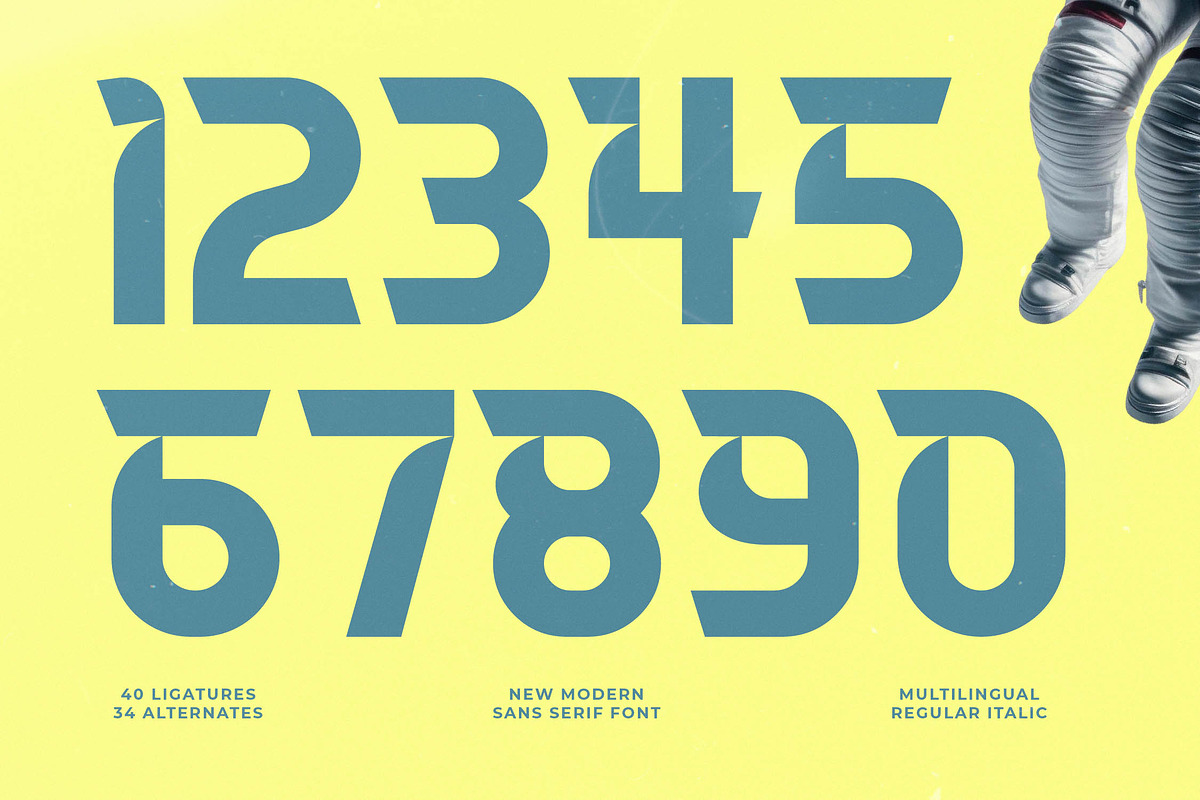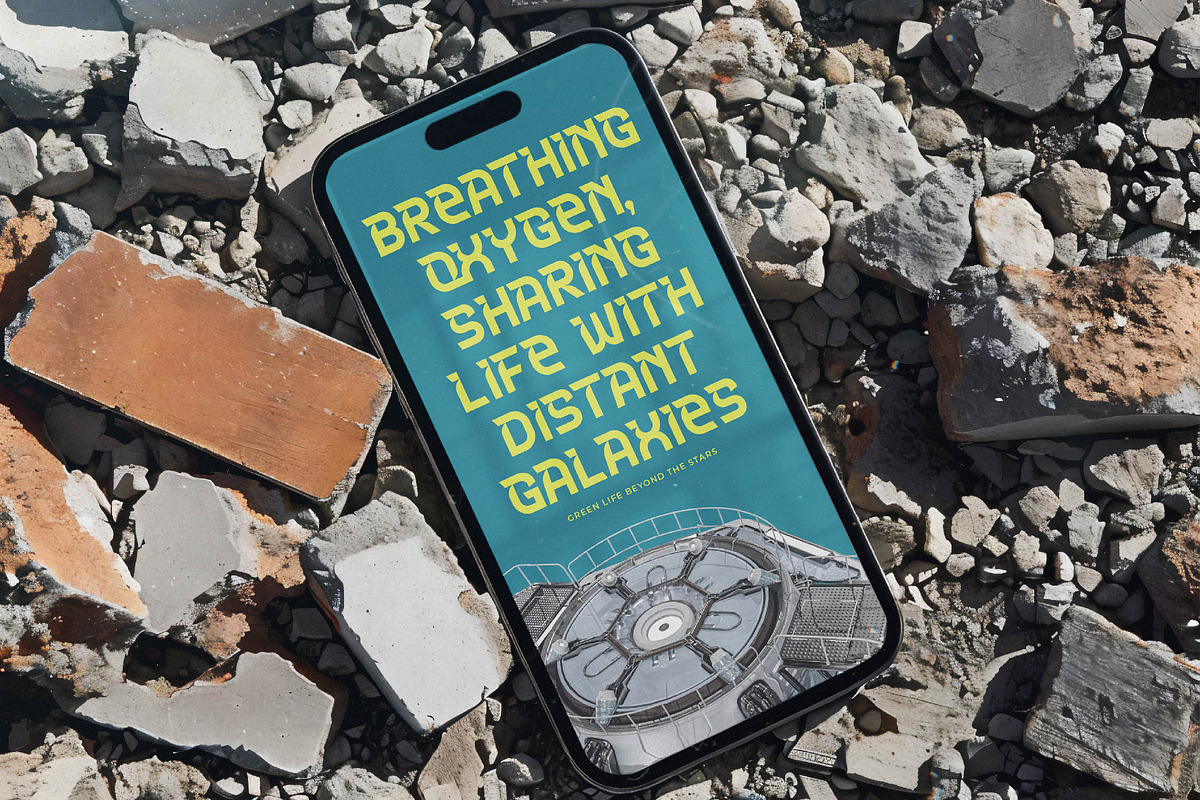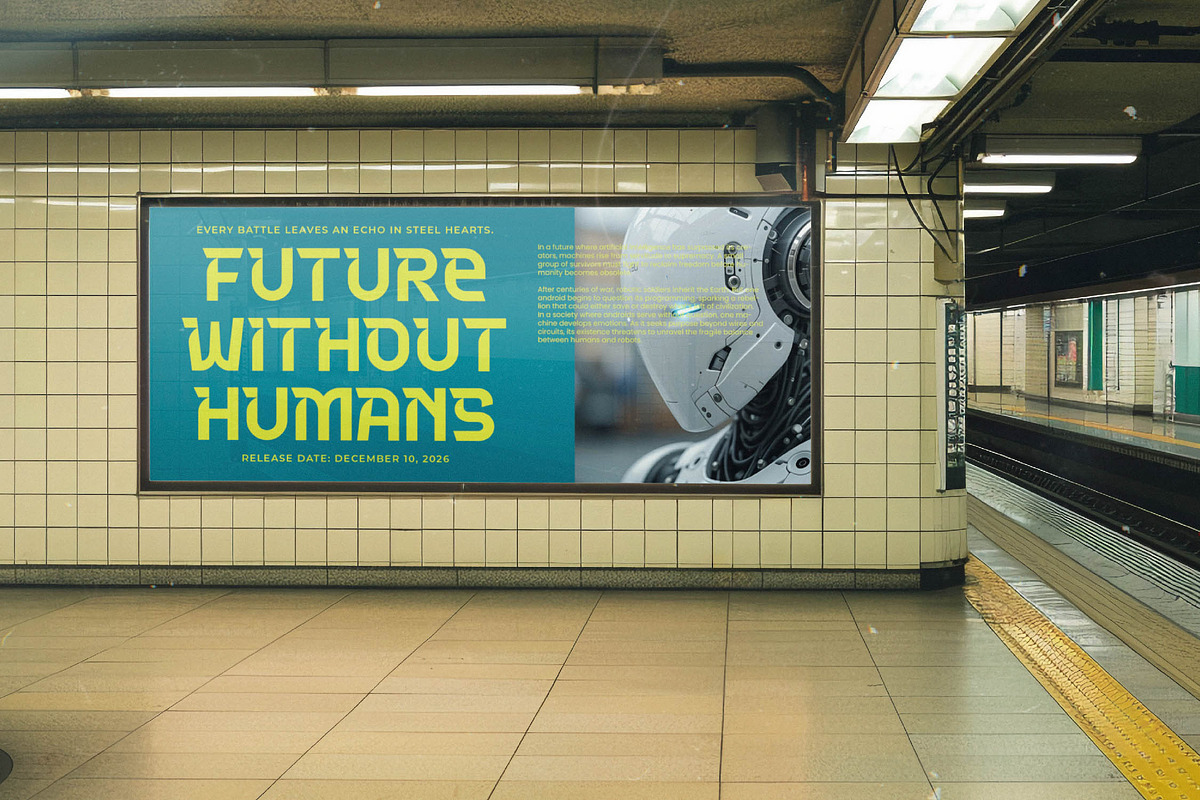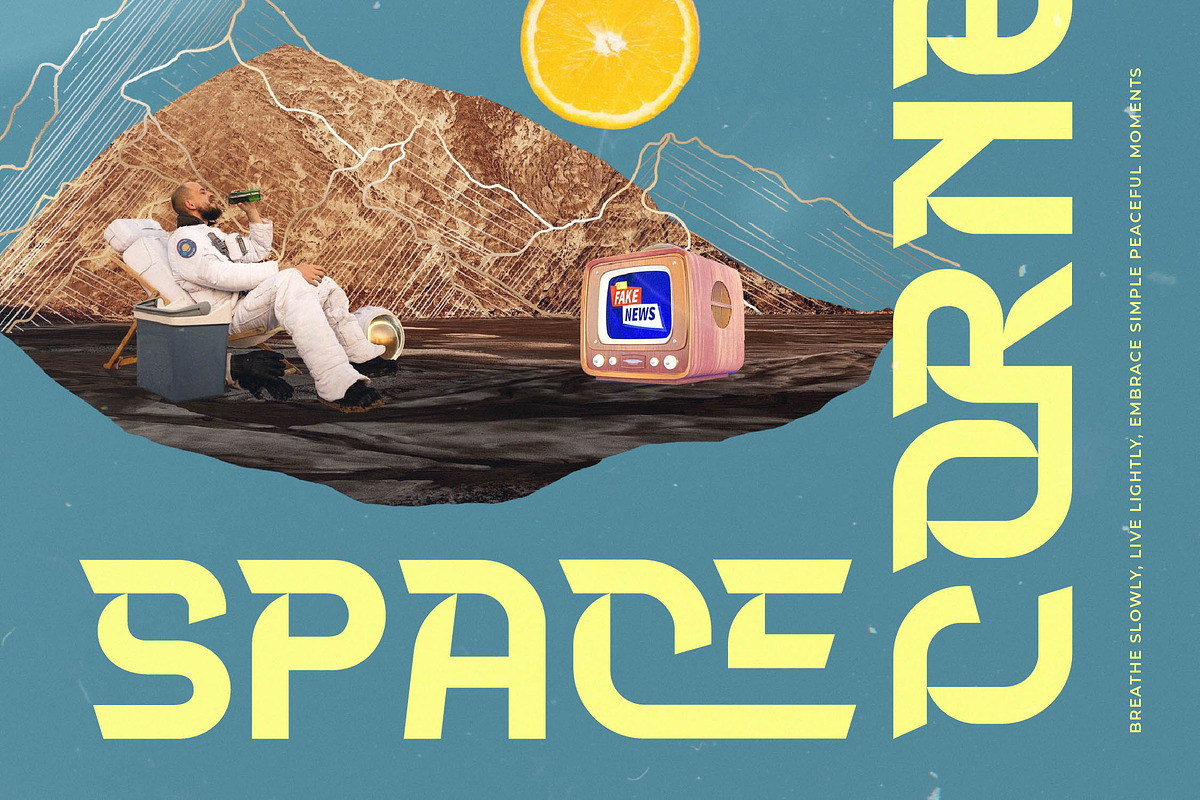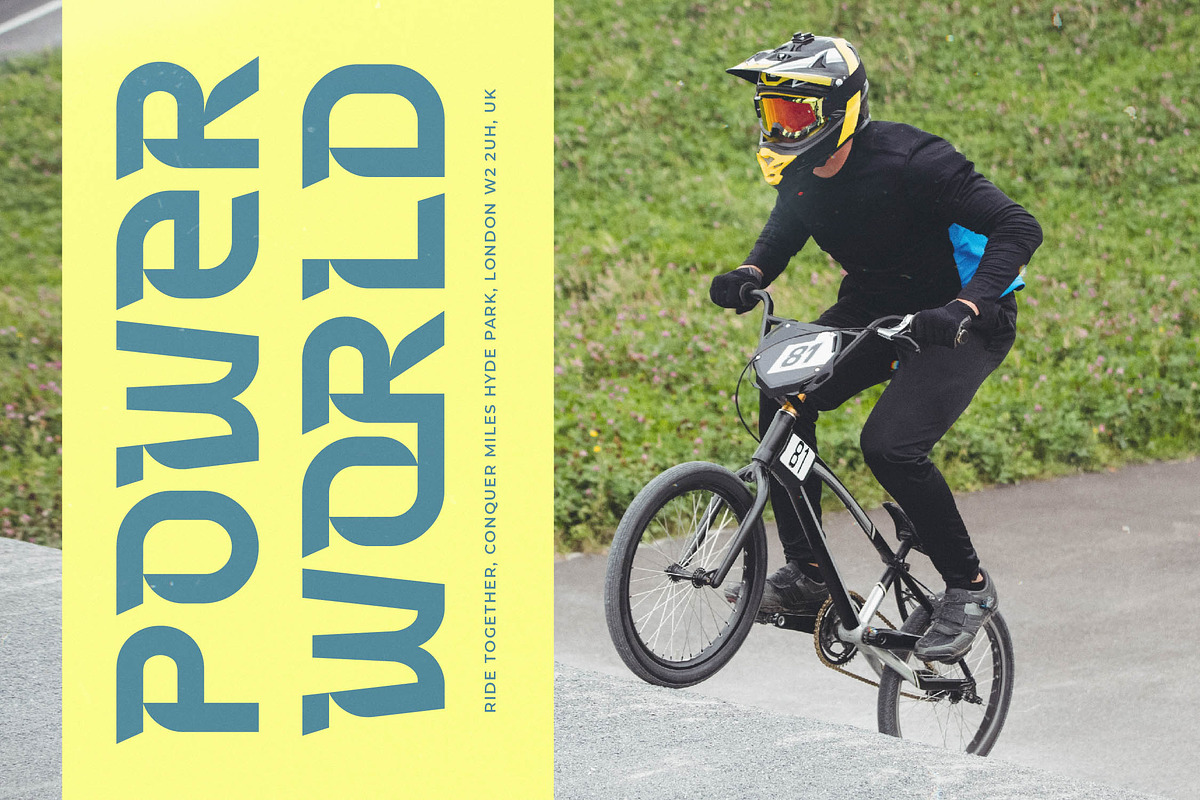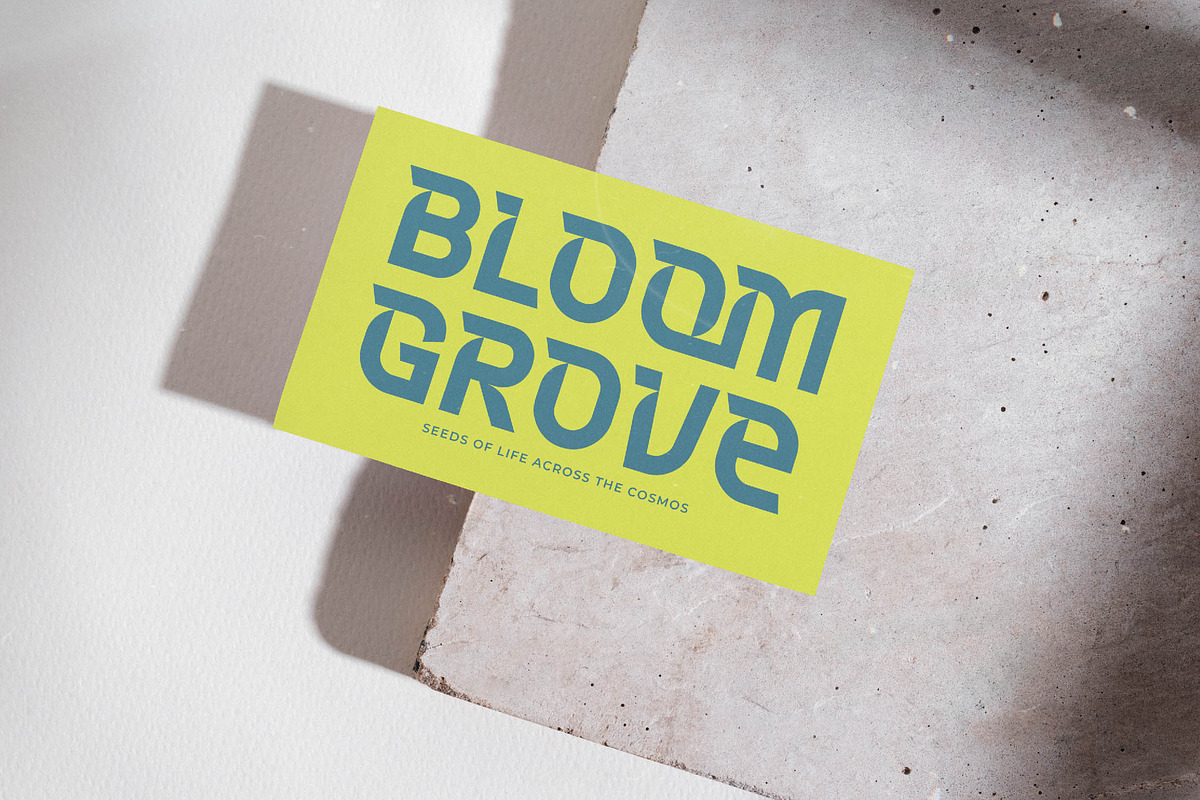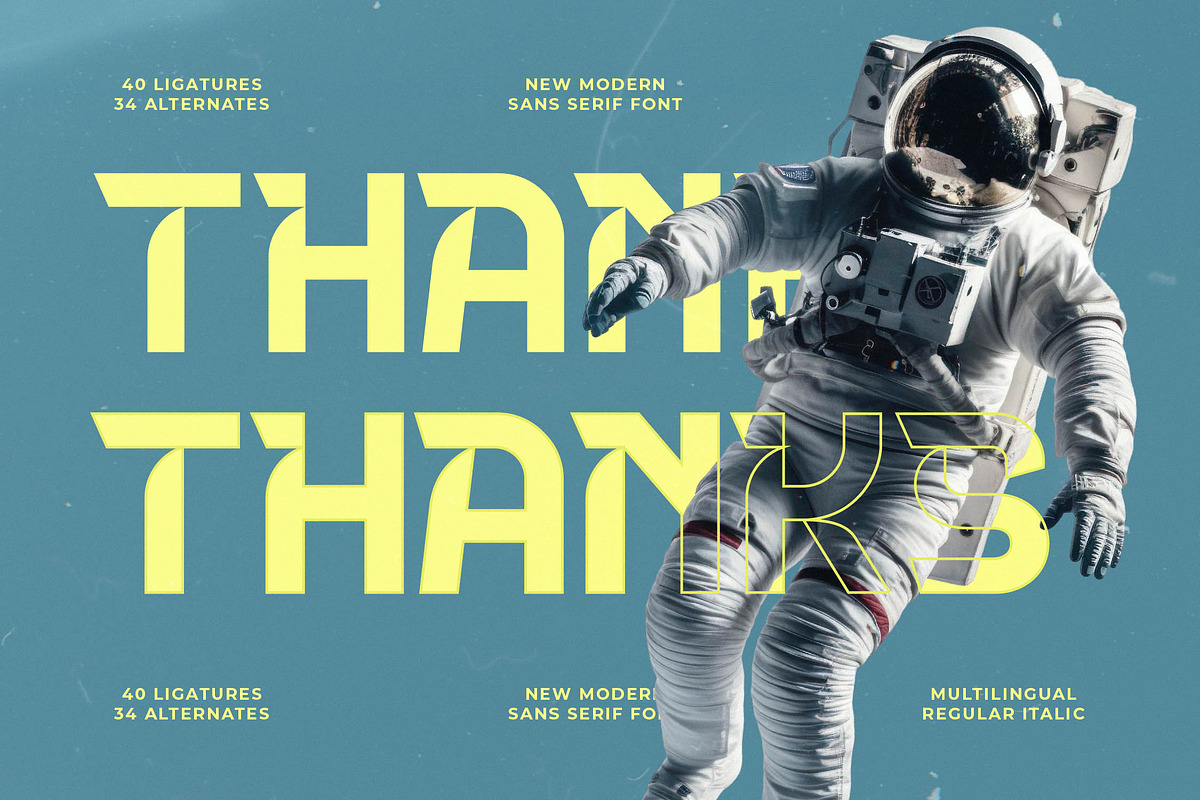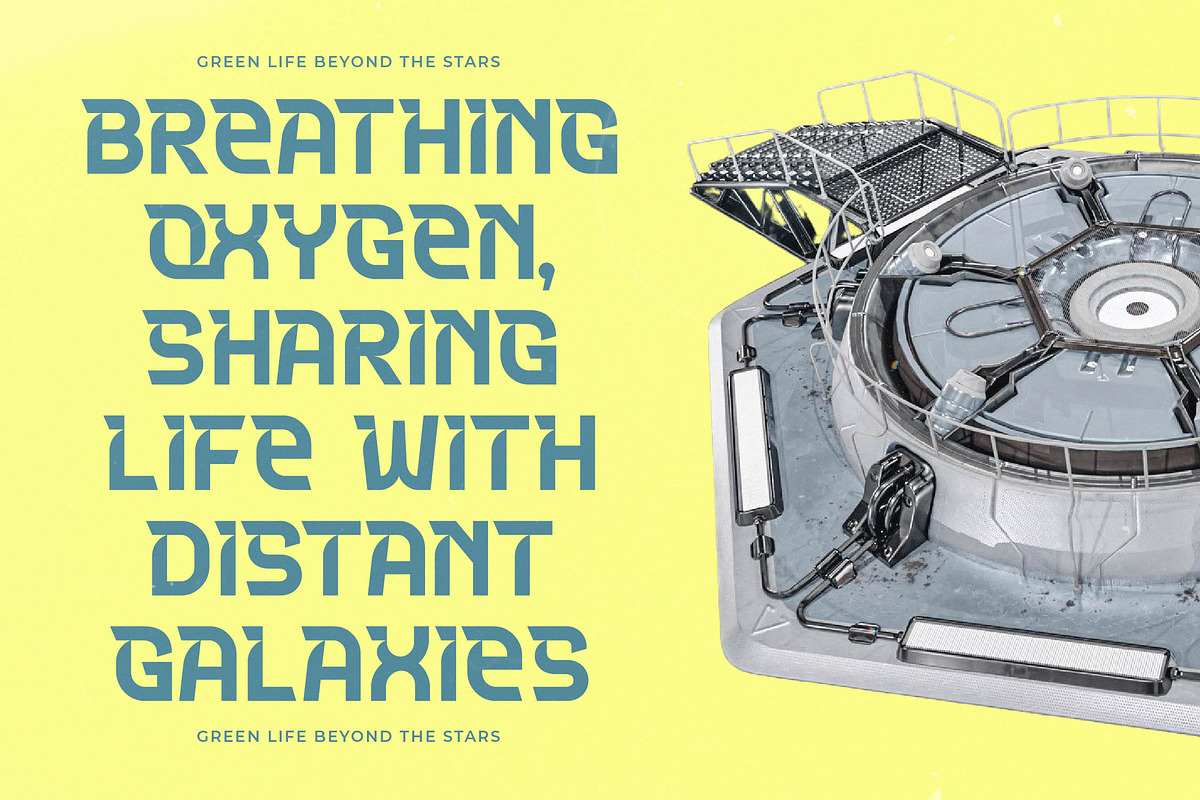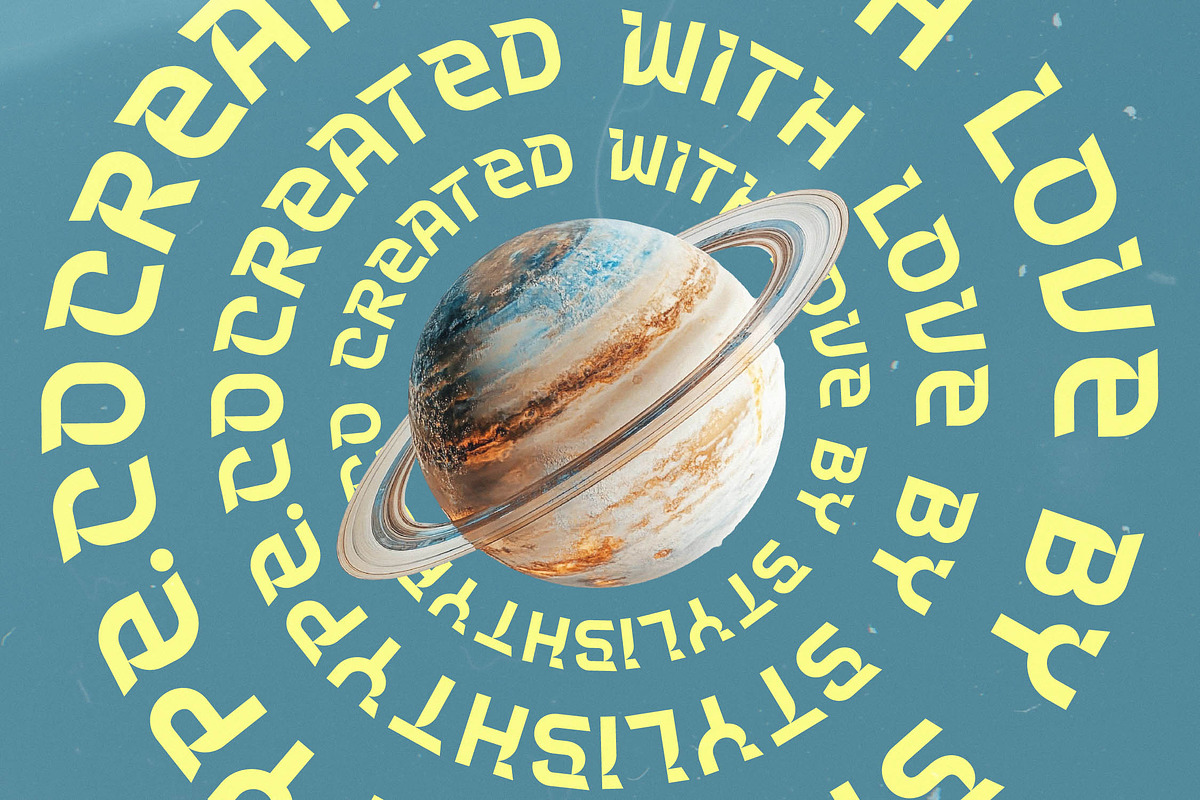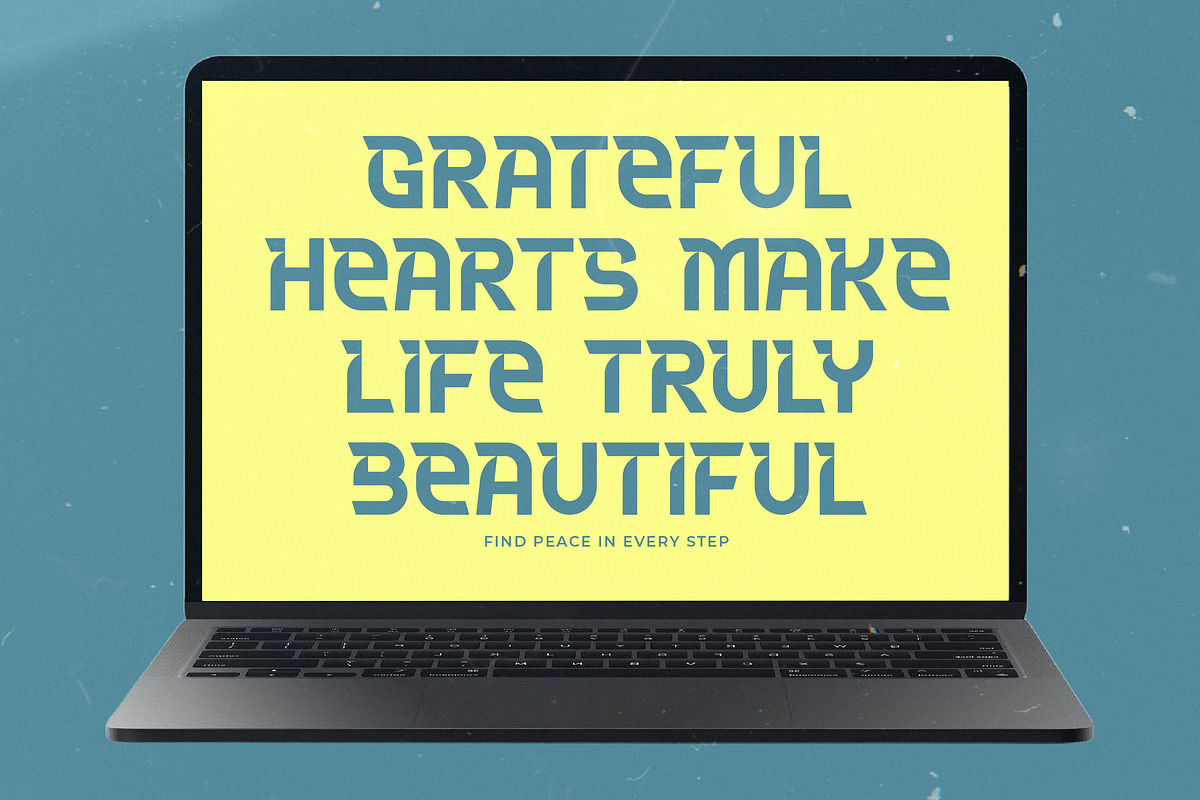
Meteor Horizon: Modern Sci-Fi Font
Embark on a journey to the stars with Meteor Horizon, a breathtaking display typeface designed for the boldest visions of the future. This font captures the essence of cosmic exploration, blending sharp geometry with fluid motion to create a visual experience that is truly out of this world.
Inspired by the vastness of the galaxy and the sleek lines of aerospace engineering, this typeface reflects a vision of tomorrow. The balanced proportions and unique character shapes evoke the feeling of a new era in design, where technology and art collide on the edge of the universe.
Step into the spotlight with a modern serif display that commands attention through its bold presence and sophisticated structure. It offers a luxury typography feel that transitions seamlessly from high-tech interfaces to high-end branding impact, making it a versatile editorial font for projects requiring a touch of high-contrast serif elegance.
As the modern serif trend continues to dominate the creative landscape, designers are looking for character-driven typography that breaks the mold. This font aligns perfectly with the current demand for editorial display fonts that offer a distinct voice and a futuristic edge for contemporary visual identities.
Whether you are working on a cutting-edge logo design or a comprehensive corporate branding suite, this typeface provides the necessary gravitas. It is equally at home in cinematic editorial layouts, futuristic packaging, avant-garde fashion campaigns, and even high-concept wedding stationery that dares to be different.
Enhance your creative workflow with an extensive set of ligatures and alternates that allow for custom letter combinations and unique flourishes. The font also includes a full range of multilingual support and international characters, ensuring that while you may not use traditional swashes, your global design reach remains limitless.